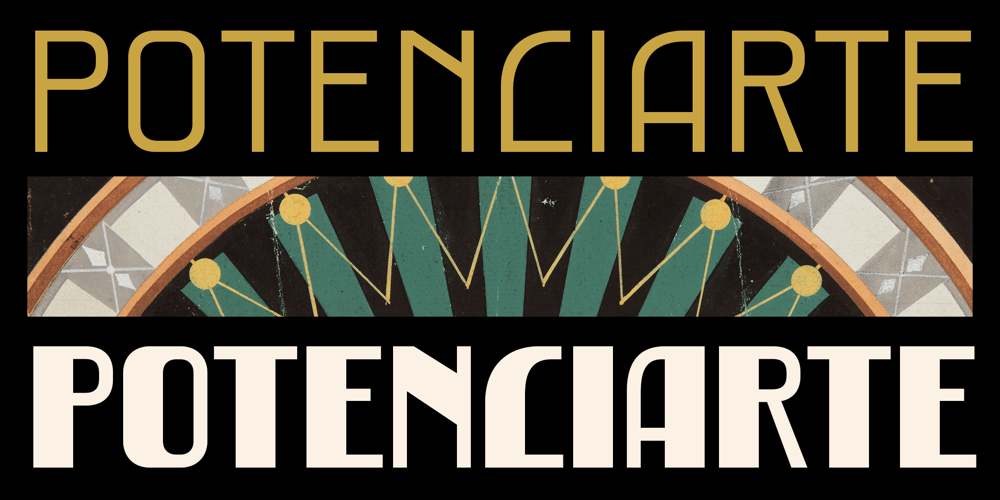
Potenciarte Font Family was designed by Nasir Udin and published by Nasir Udin. Potenciarte contains 5 styles and family package options. Potenciarte is an all-caps display typeface inspired by the facade of old buildings from the era of Nederlandsch-Indie (1900’s) in Surabaya, where Art Deco & Art Nouveau typographic styles were widely used.